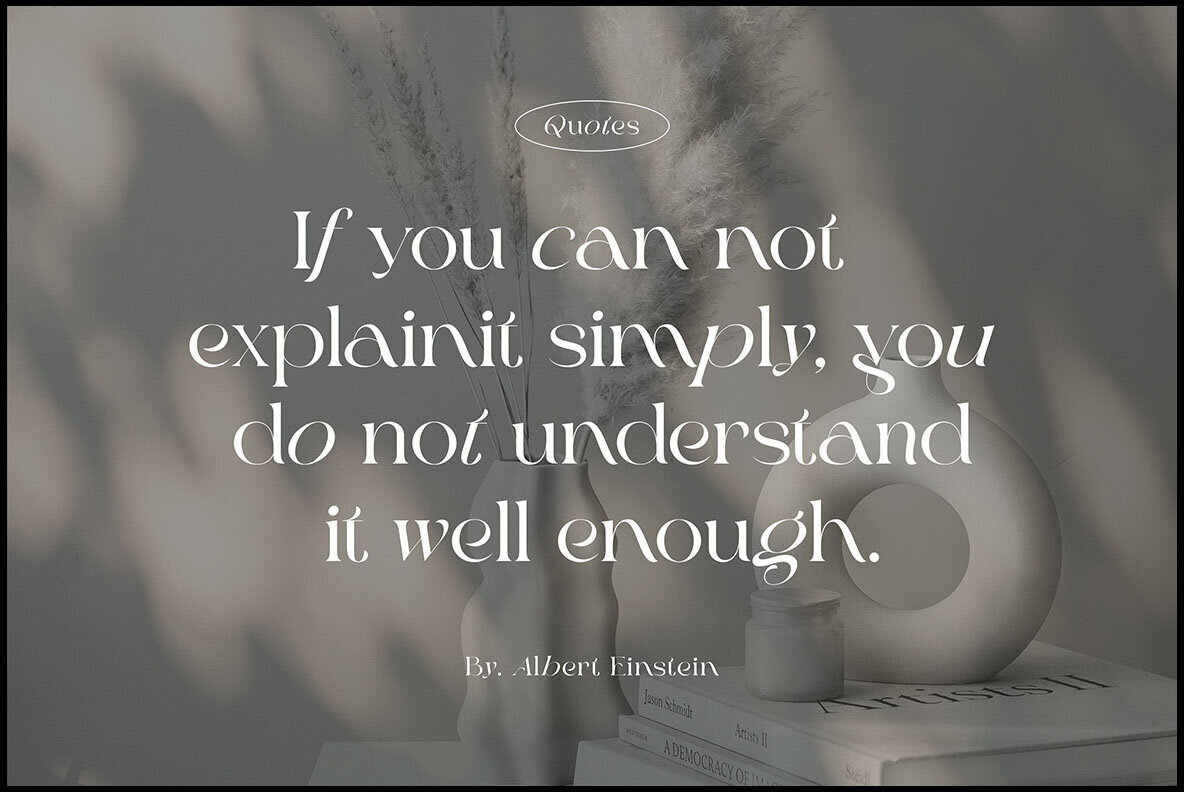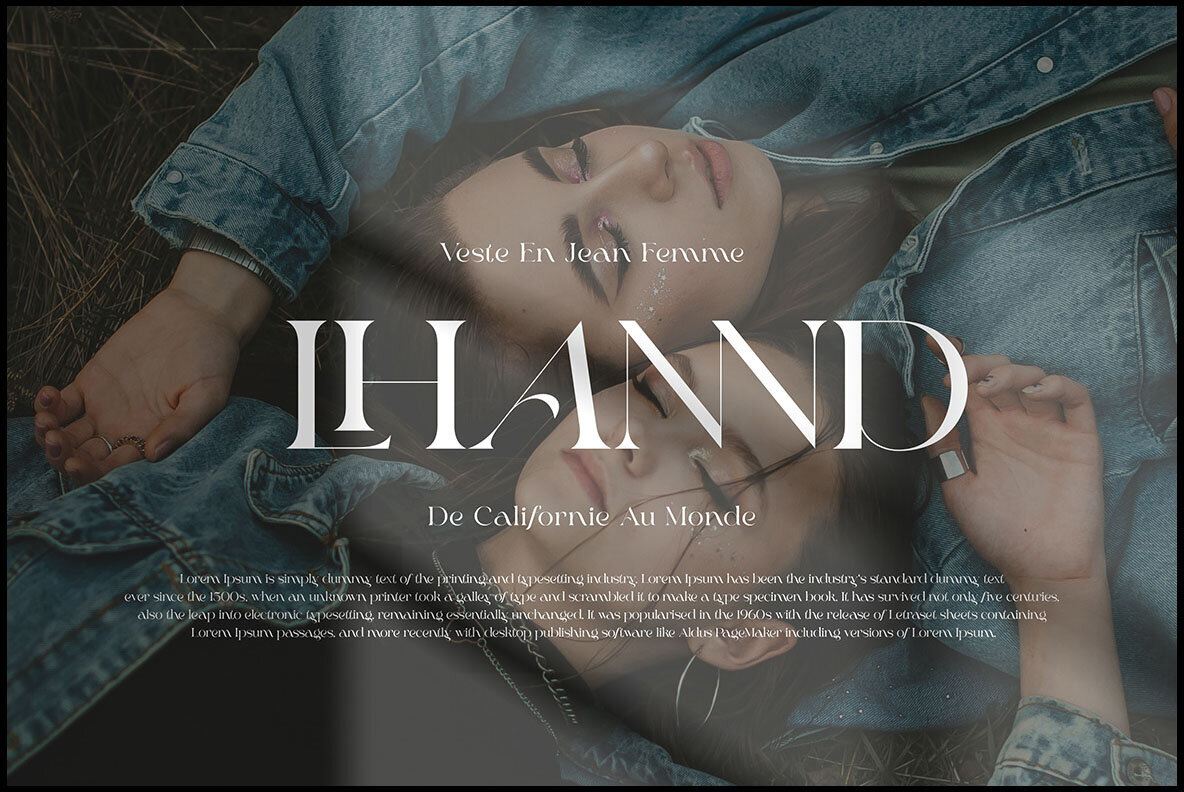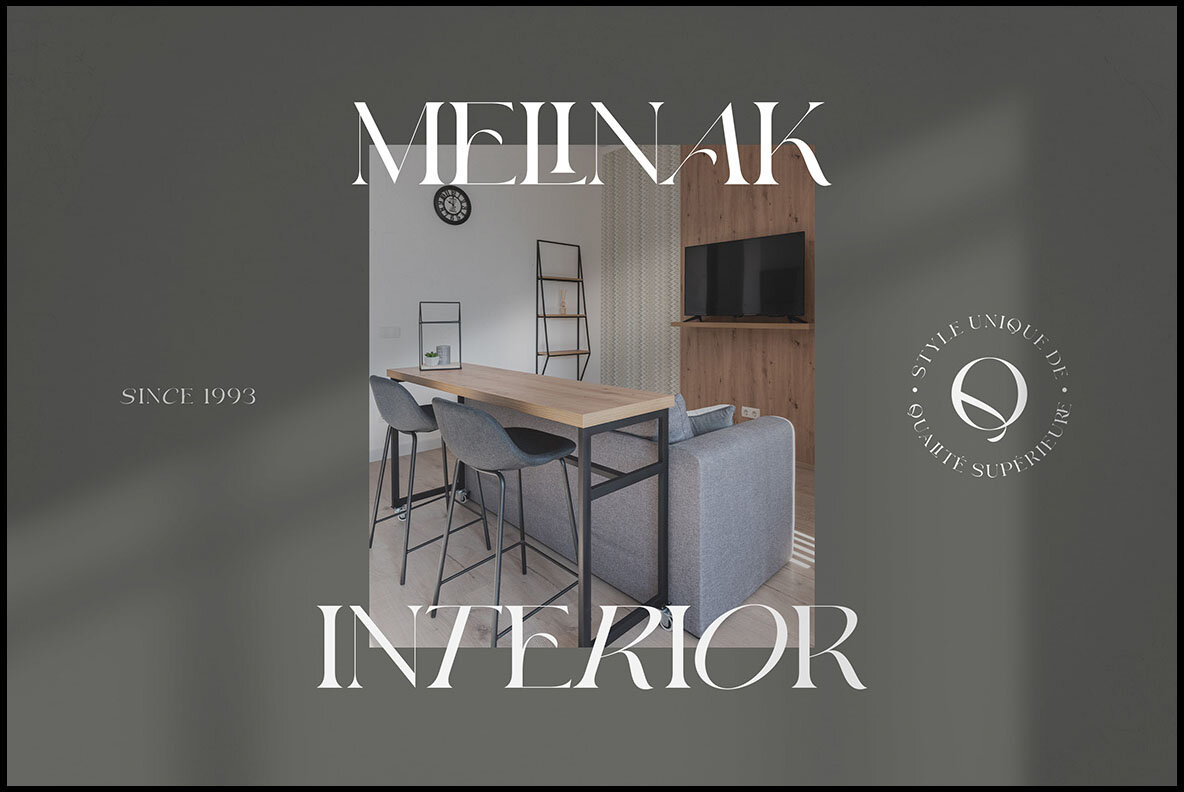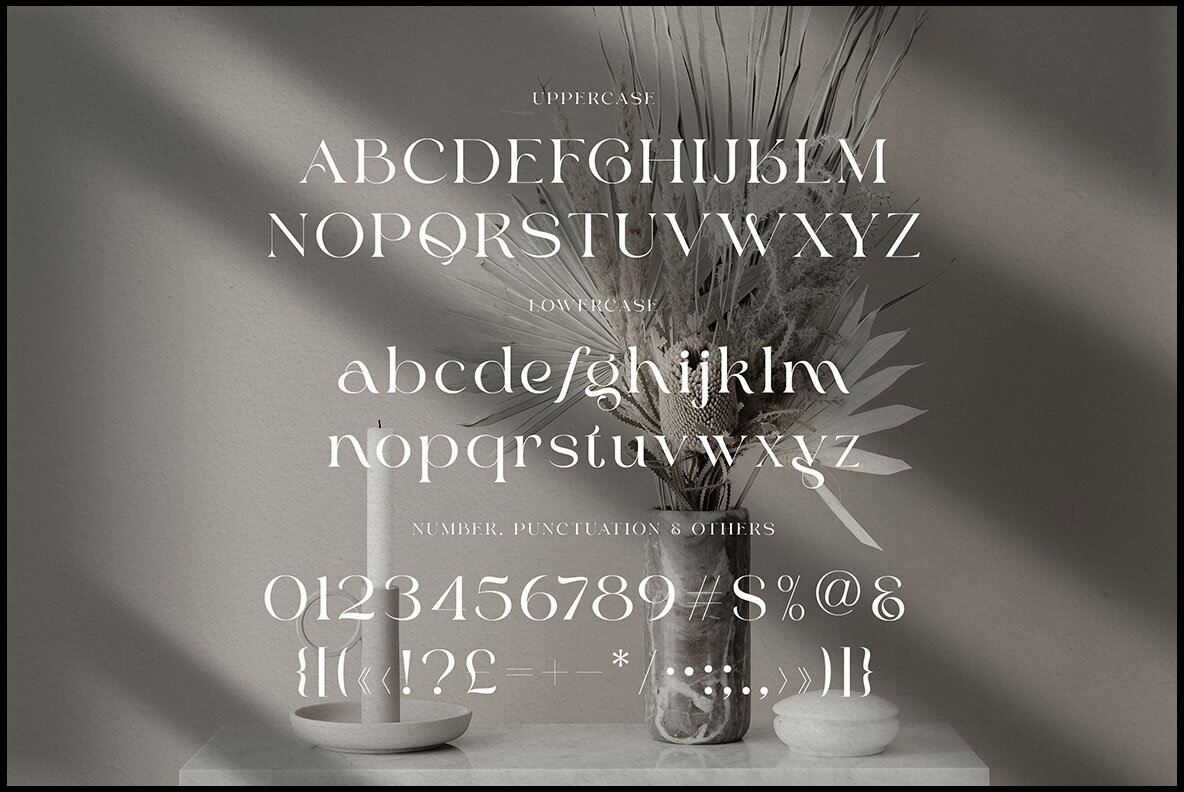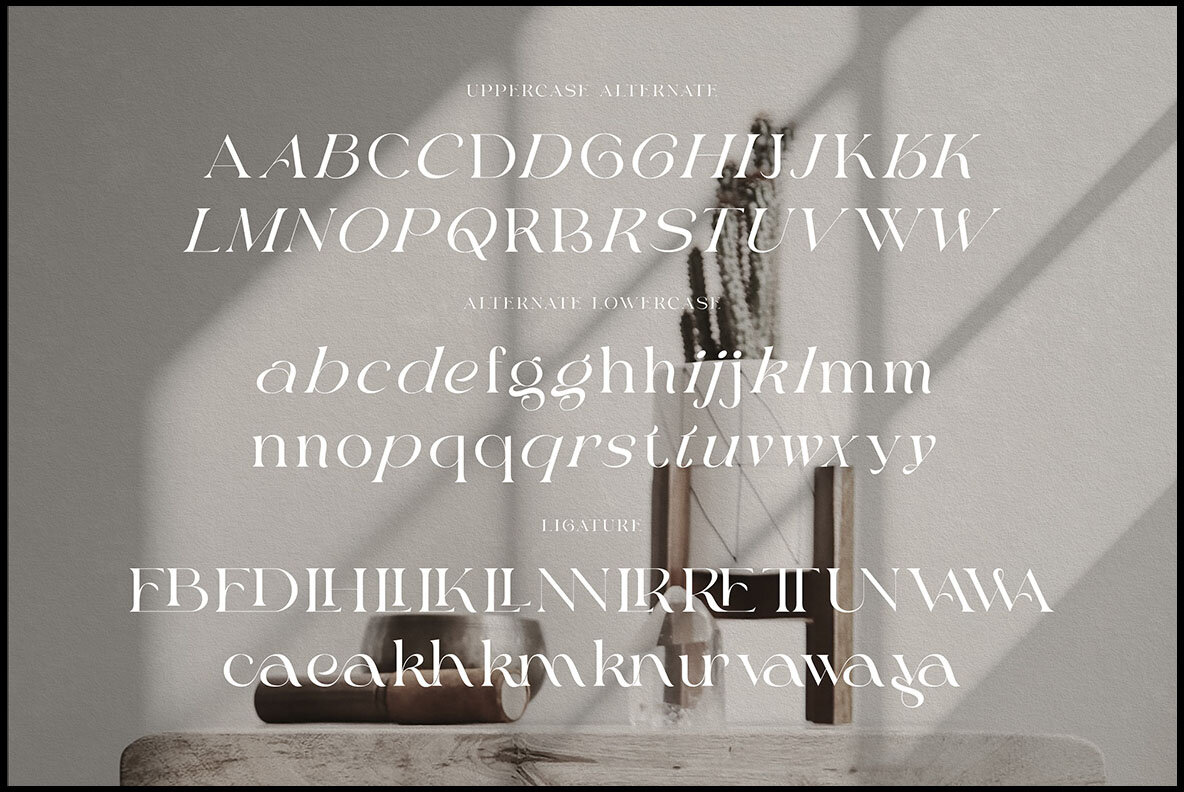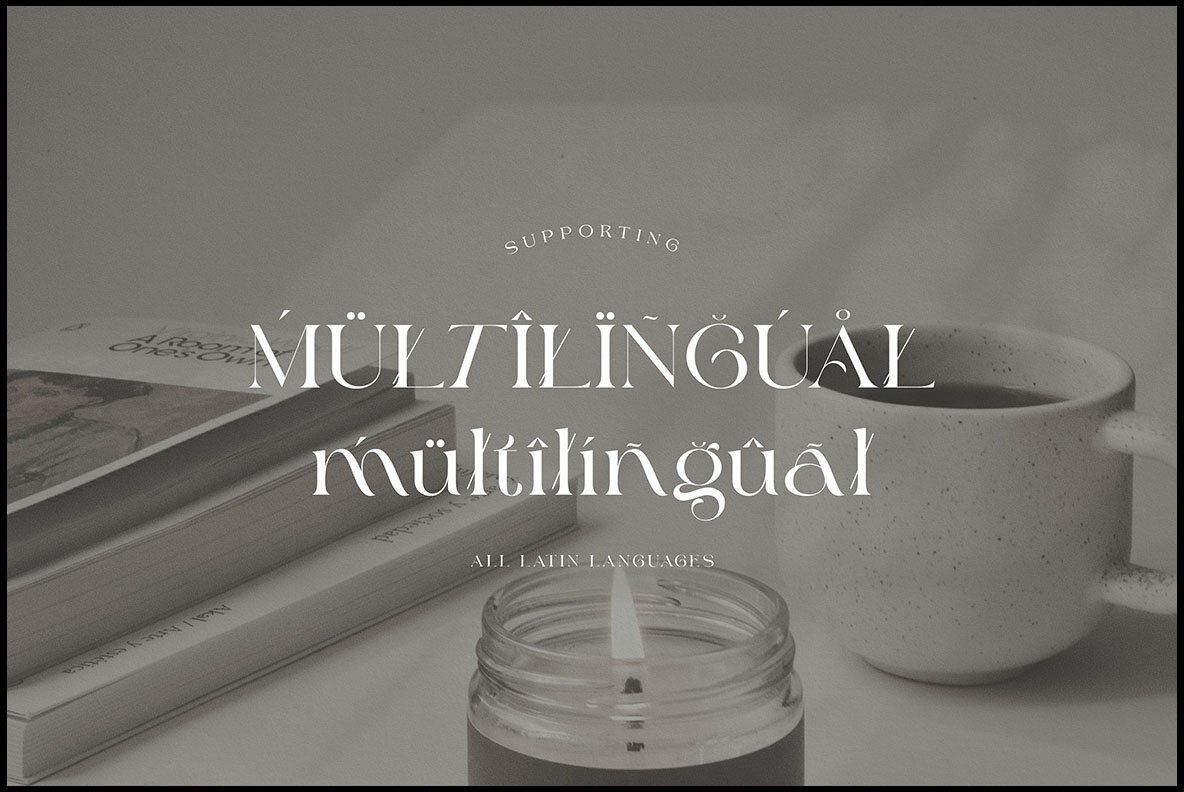
Quick Smart Font
Quick Smart
Quick Smart by Peter Olexa is a modern serif font that seamlessly blends trendy, elegant, and retro styles. Its luxurious and artistic design makes it perfect for any branding project, infusing a fancy and fashionable flair into your creative works. With numerous alternates and ligatures, you can craft unique and original logos or website headers that stand out.Quick Smart: A Trendy and Elegant Serif Font